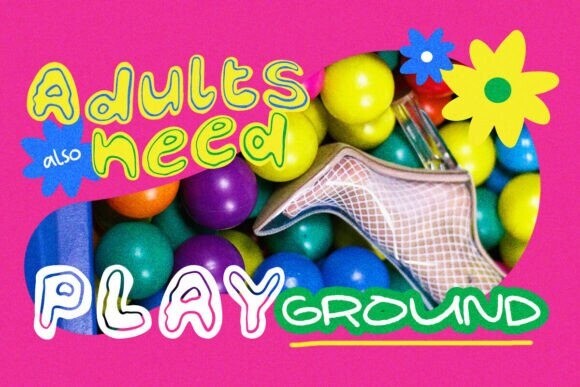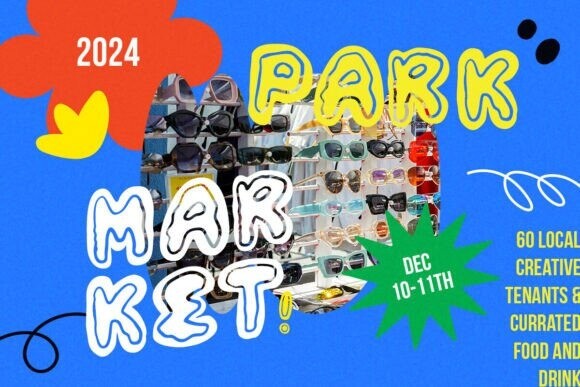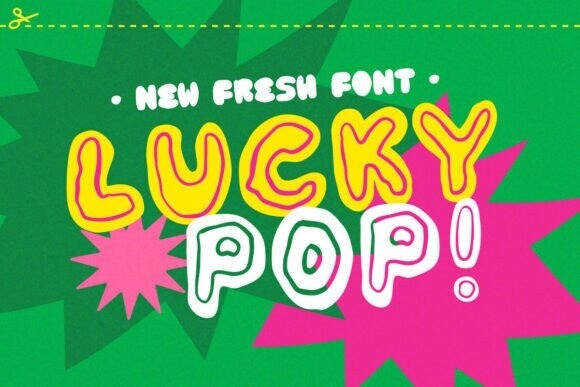
Lucky Pop! Font
Designer: Sloulyfe & Oyko
Lucky Pop! Font. With its fun and quirky design, this font adds a splash of spirit and cheerfulness to your projects. It features separate versions, allowing you to get creative with colors in the inline style. Exciting, right?